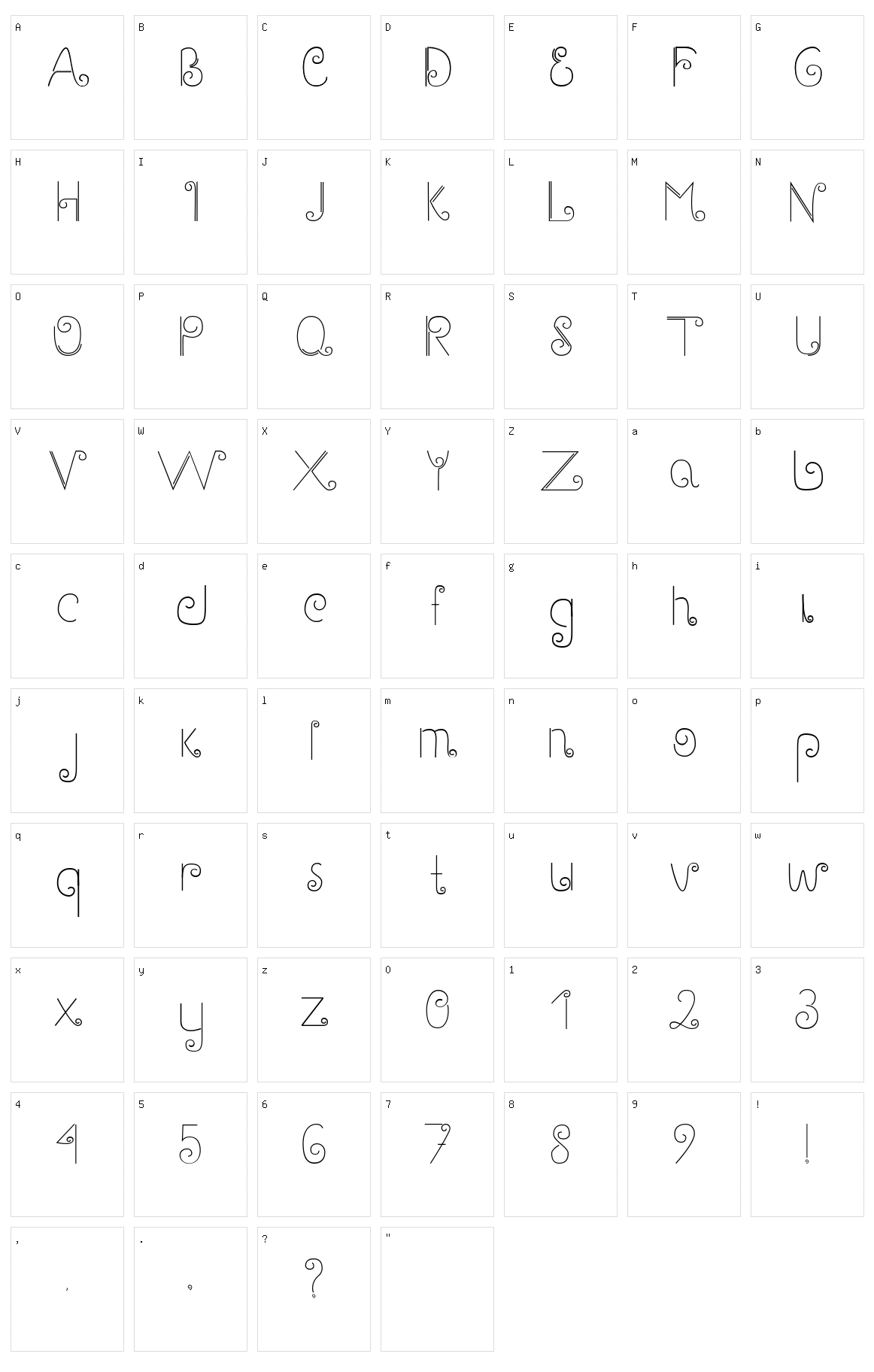
The free font Gary is carefully designed by Projeto Tipo da Fonte, showcasing a thoughtful balance of creativity and usability and falls under the Script font style. When you download the ZIP file, it contains only 29.17 KB of font files, making it lightweight and quick to download. Please review the license details below to understand permitted usage and distribution rights. If license information is not available, we recommend using this font for personal projects only or contacting the author directly for commercial usage permissions.